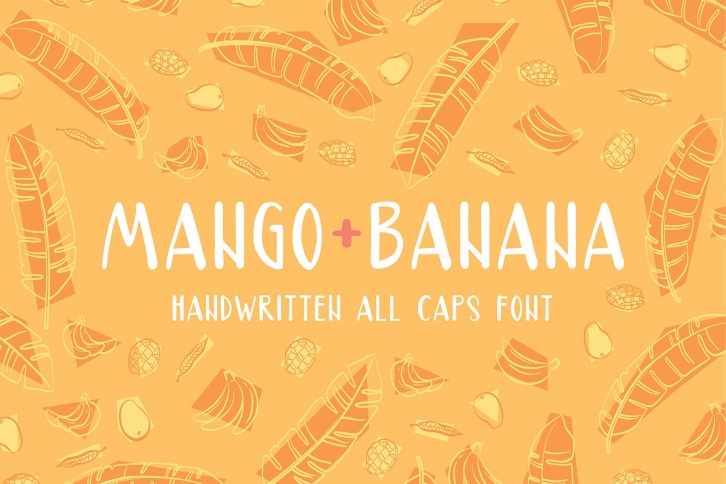
Handwritten all caps font
Mango+Banana is a playful, casual font great for branding, packaging, greeting cards, invitations, logos, social media, and more!
Mango+Banana includes Latin and Cyrillic multilingual support for most European languages.